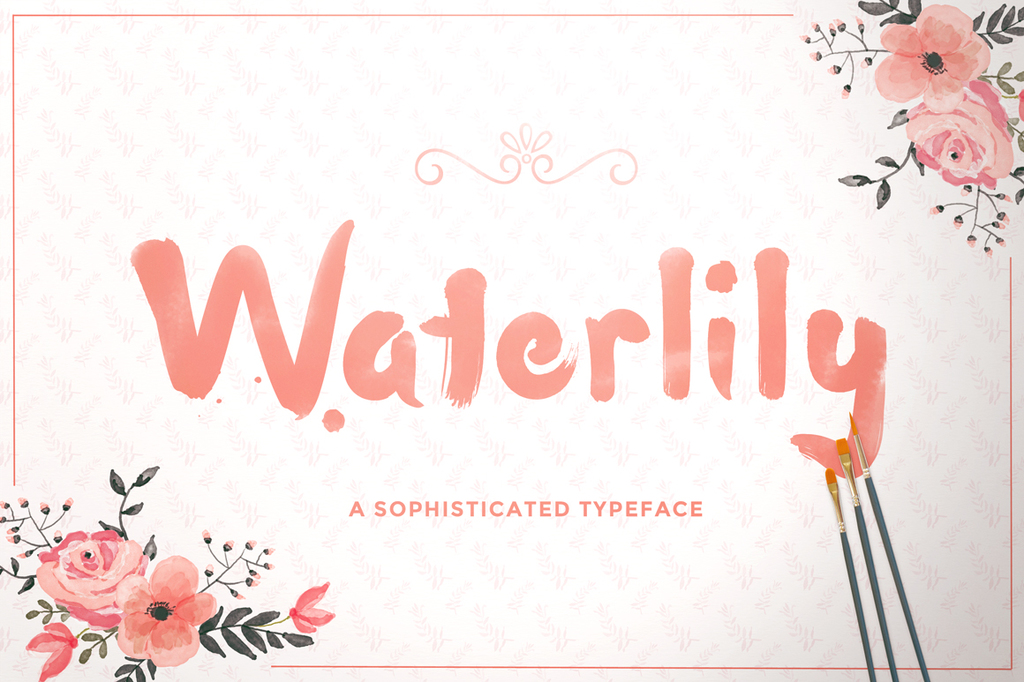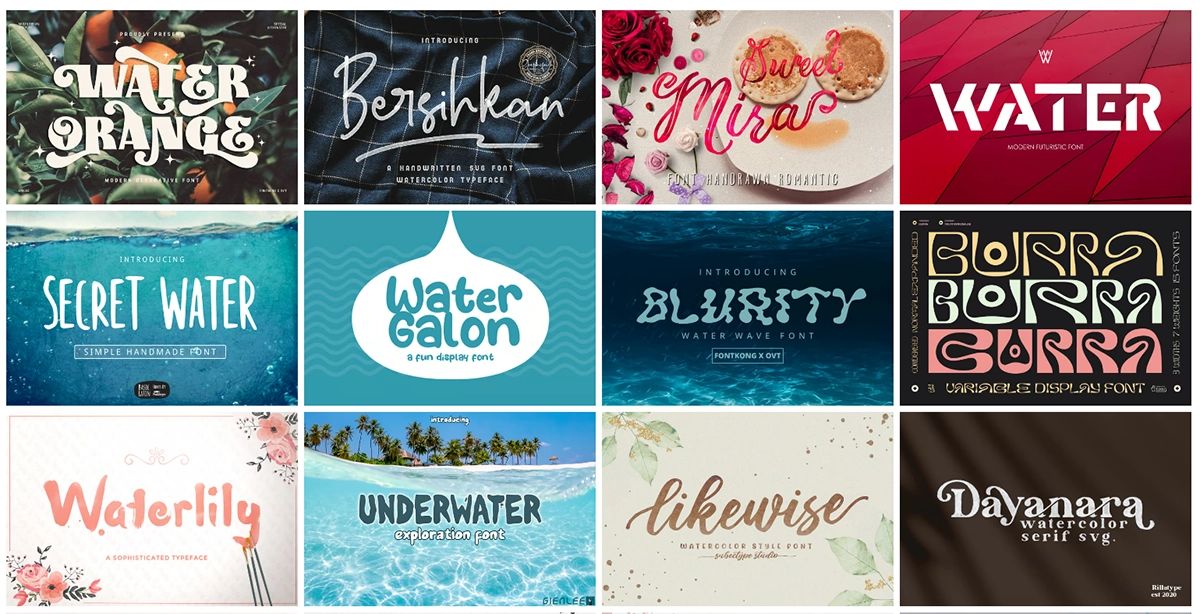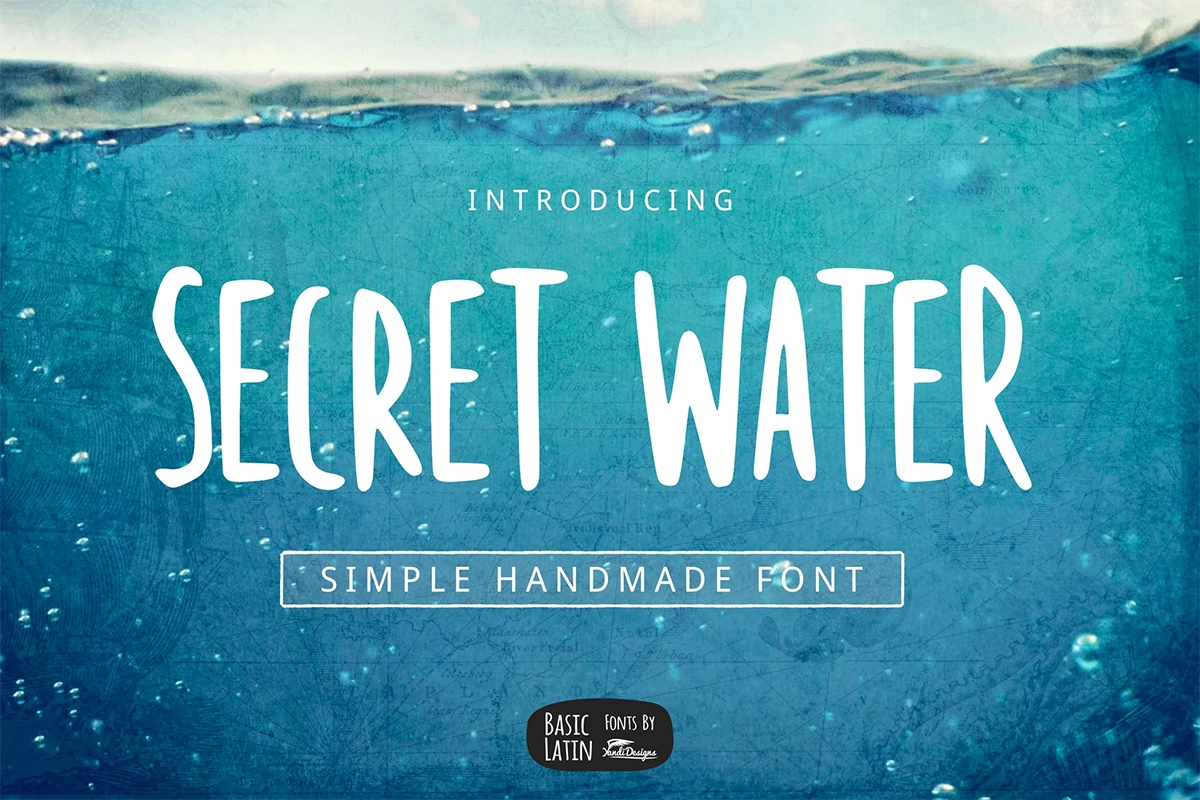
11+ Top Water Fonts 2024 (Free & Premium)
When creating an eye-catching design, water fonts can be your most reliable ally.
Water fonts add a distinctive fluidity and flow that draws viewersโ€™ eyes immediately. While there are countless fonts available for download, finding the ideal font may be daunting โ€“ we are here to help you narrow down your options and elevate your designs! In this post we have collected only the top water fonts.
11+ Top Water Fonts 2024 (Free & Premium)
water fonts preview
1.Secret Water Simple Font
Secret Water Single Fountain
Secret Water is an effortless handmade font perfect for use across a range of projects, such as childrenโ€™s books, quotes, logos, headings and titles.
Secret Water is a normally-spaced sans-serif font offering clean, basic characters, numerals, symbols, and punctuation โ€“ perfect for print and digital applications alike! Designed for easy readability across platforms โ€“ whether web design, mobile interfaces or traditional print โ€“ Secret Water offers clarity and ease-of-use across them all.
2. Hello Friday โ€“ Watercolor SVG Font
Hello Friday - Watercolor SVG Font
Hello Friday is an SVG font featuring an elegant watercolor effect, making it the ideal font to bring an artistic, hand-painted feel into any design project. Additionally, this font comes both as SVG OTF and OTF files to offer maximum flexibility when using Hello Friday on creative endeavors.
Hello Friday is an extremely versatile font with uppercase and lowercase characters, numerals, punctuation marks and multilingual support โ€“ not to mention double ligatures that add an organic and natural flow to your designs โ€“ making it the ideal font choice for branding projects, invitations or any project needing an artistic, textured finish.
3. San Marino
San Marino
San Marino is a bold, hand-brushed typeface ideal for ink and watercolor designs, providing boldness with its regular spacing โ€“ ideal for larger display sizes such as posters or headlines.
San Marino font is an ideal way to add a special, customized touch to invitation cards, posters and any project where water-inspired fonts add character and originality. We suggest it for invitation cards, posters and any project where water-inspired fonts add depth and originality.
4. Skywave โ€“ Display Italic Font
Skywave - Display italic font
Skywave, inspired by ocean waves, is a captivating cursive display font perfect for making an impressive statement. Perfect for logos, headlines, taglines and product packaging projects; also ideal for posters, T-shirts social media posts branding etc.
Skywaveโ€™s versatile alphabet provides uppercase and lowercase characters, numerals, punctuation marks, alternates and symbols for use across an array of design projects, adding creativity and fluidity to your work.
5. Spring Rain SVG Watercolor Brush Font
SpringRain SVG Watercolor Brush Font
Spring Rain is an elegant brush font featuring multiple styles and textures, available both as SVG files and as solid versions for use in branding, quotes, cards, or any creative projects.